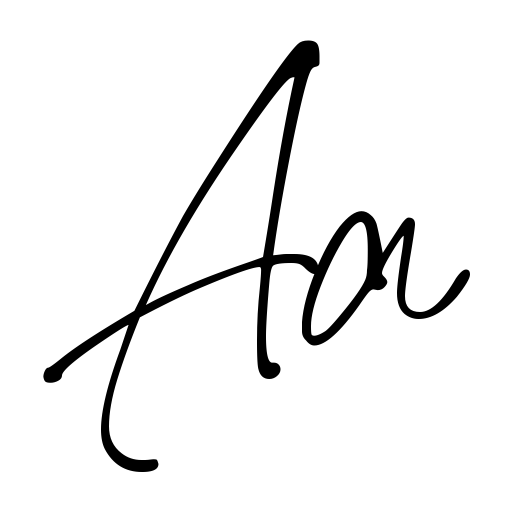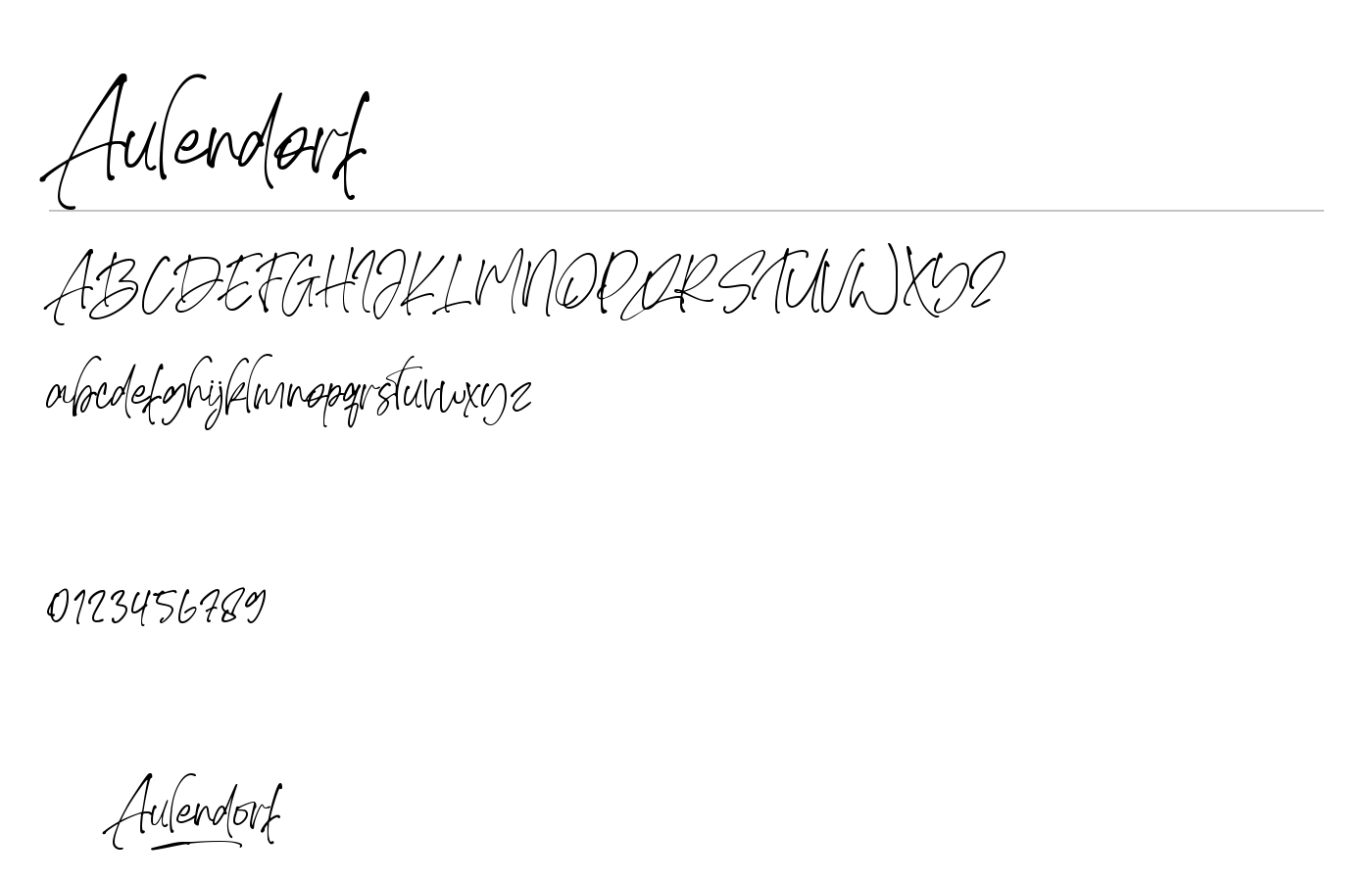
Aulendorf is a delicate, handwritten script font that features slender and flowing letterforms with a lively, spontaneous feel. Its light weight and airy spacing create an elegant and personal touch, making it perfect for creative projects, invitations, and branding that seek a natural, artistic impression. The font’s unique, casual style lends warmth and personality, ideal for conveying authenticity and charm.
Aulendorf Font